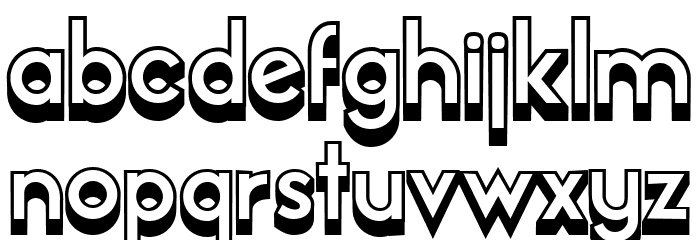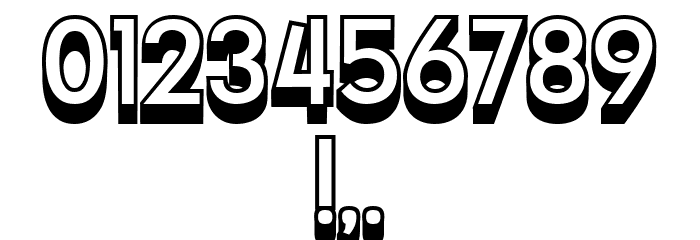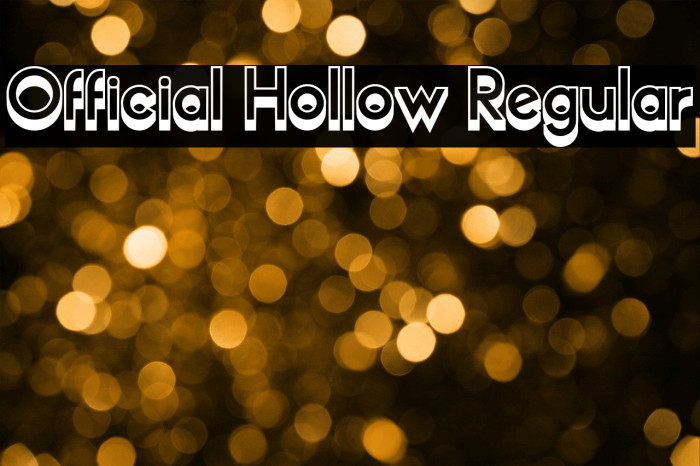
Official Hollow Regular Font
This font features a bold, hollow design with a three-dimensional effect created by its shadowed outline. The uppercase and lowercase letters maintain a consistent thickness, giving a uniform appearance across the alphabet. The numerals and special characters follow the same stylistic approach, ensuring coherence throughout. This font's playful yet structured design makes it suitable for eye-catching displays and creative projects. Its geometric shapes and clean lines contribute to a modern aesthetic, while the hollow aspect adds a unique twist, making it stand out in various applications.
A bold, hollow font with a 3D shadow effect, perfect for modern and creative displays.
- Proposed Projects: Ideal for posters, headlines, logos, and any project requiring a striking visual impact.